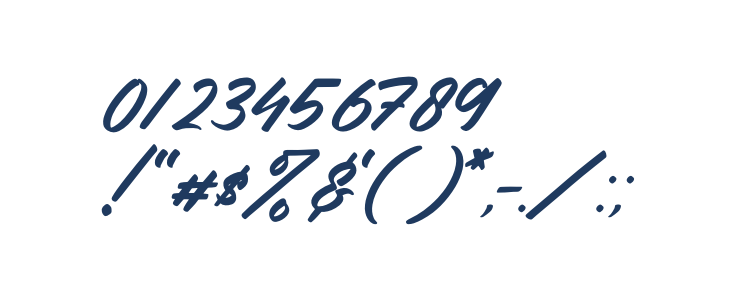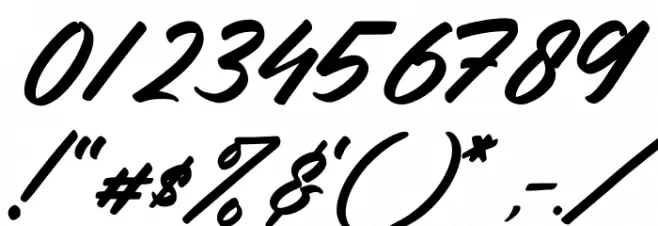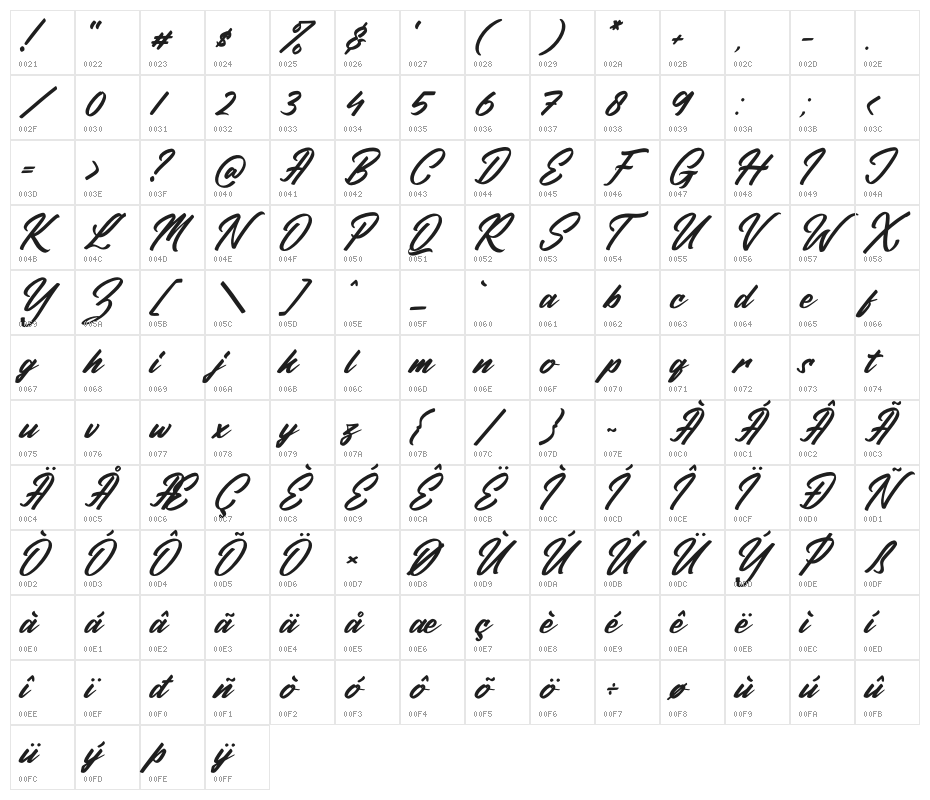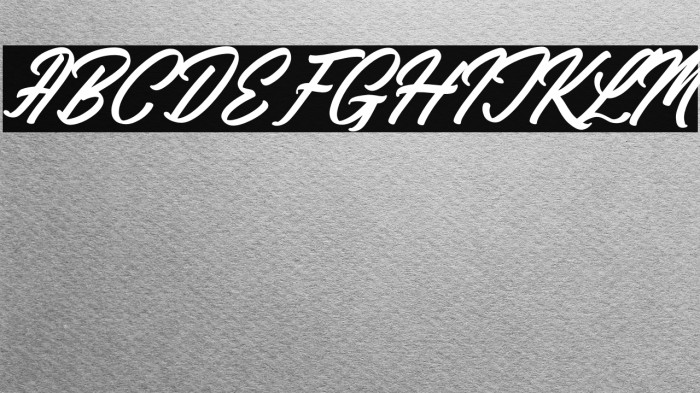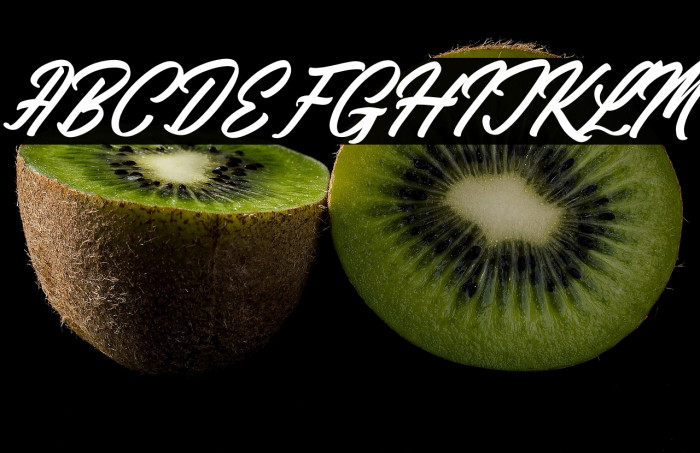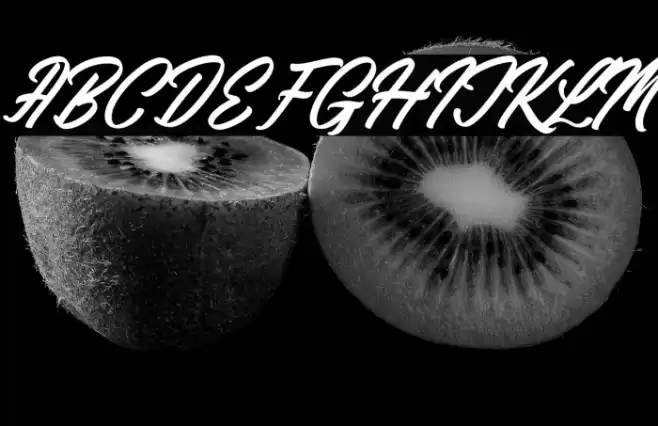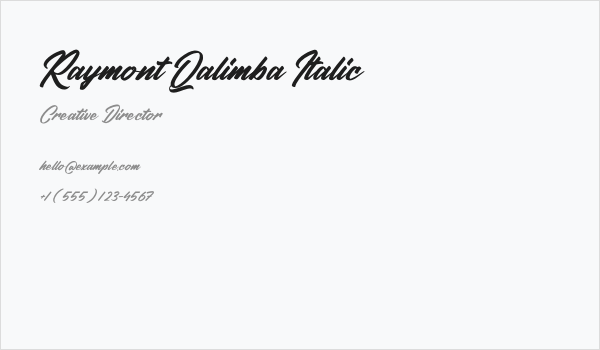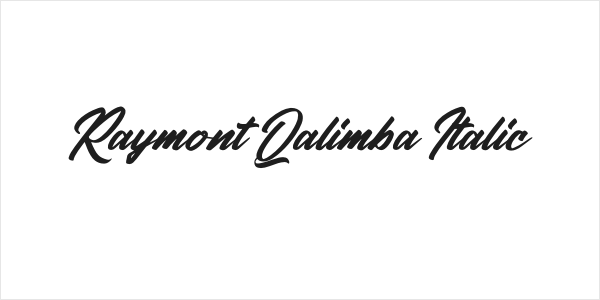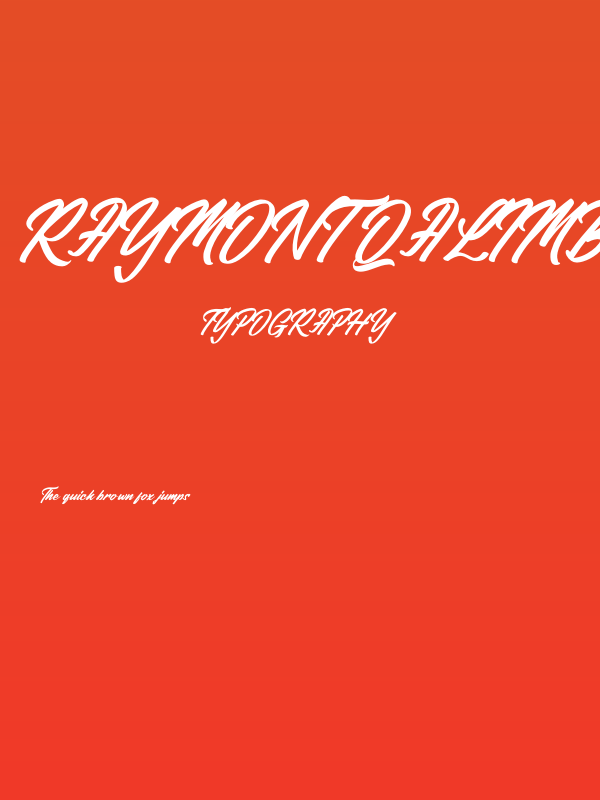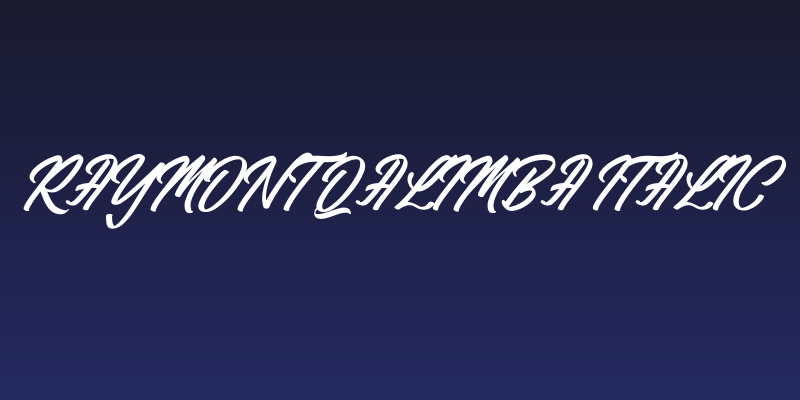
Raymont Qalimba Italic Font
Raymont Qalimba Italic Description
This font exudes a dynamic and elegant script style, characterized by its flowing, cursive letterforms. The strokes are smooth and connected, giving it a handwritten appearance that is both stylish and sophisticated. The uppercase letters are bold and sweeping, while the lowercase letters maintain a consistent flow, enhancing readability. The numerals and special characters are crafted with the same fluidity, ensuring a cohesive look across all elements. This font's italic nature adds a sense of motion and grace, making it ideal for projects that require a personal touch.